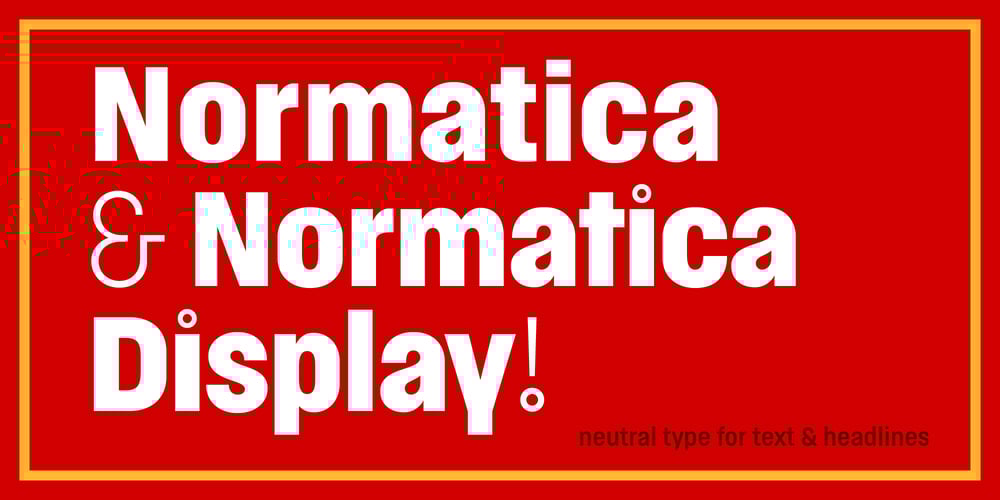
Normatica
Normatica font
Normatica Font Family was designed by Samuel Čarnoký and published by CarnokyType. Normatica contains 24 styles and family package options. Normatica is a neutral typeface inspired by advertising letters used as letterings on shop windows during period of Normalization (the 60s–90s) in former Czechoslovakia. The complete font family consist of 24 styles in 6 weights (Thin–Black) with matching Italics where every style is followed by his Display counterpart. The difference between default and display styles is tighter spacing in Display fonts and different design of punctuation and diacritics accents. Beside the complete set of Latin, Normatica includes Cyrillic characters as well. Each font contains of alternative variation of some characters (j, t, y, Q) and includes a wide range of the Opentype features (for more details see pdf Specimen in Gallery section). Mixture of Normatica and Normatica Display can be effectively used for both text and display usage. It can be used in advertising, signage, corporate identities and various situations of editorial design. You can try two Demo styles in Medium weight fully for free.